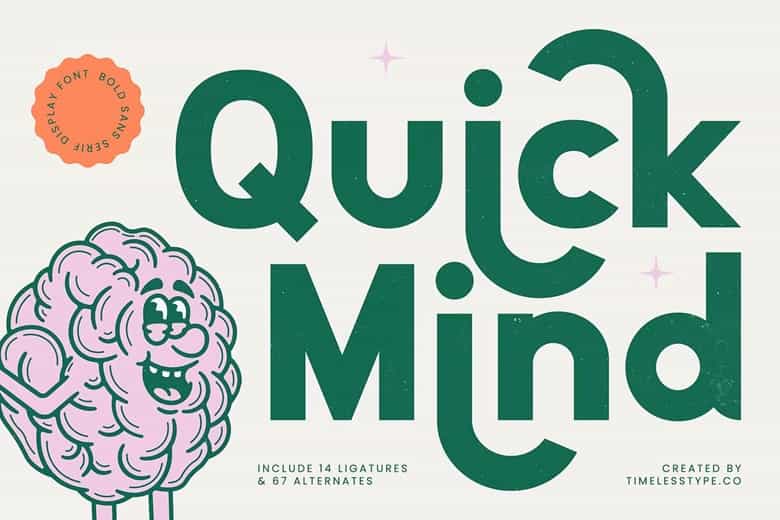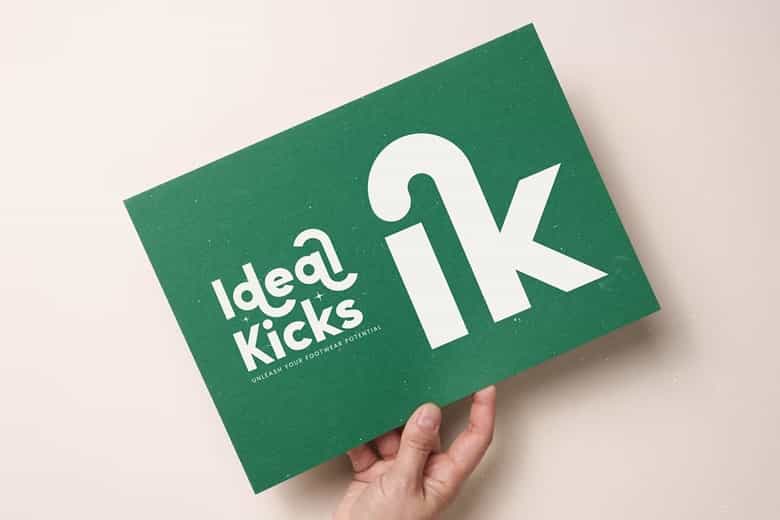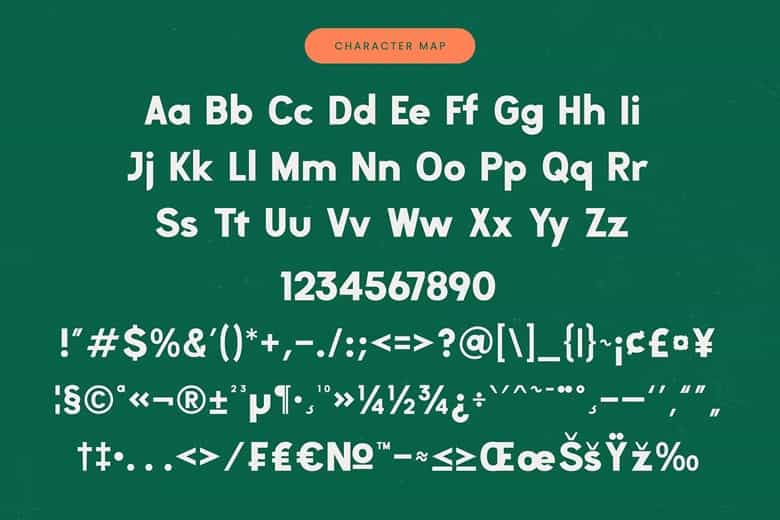
Quick Mind is a modern bold sans serif display font, from Timelesstype.Co , Suitable for any projects such as: logos, branding projects, homeware designs, product packaging, mugs, quotes, posters, shopping bags, t-shirts, book covers, name card, invitation cards, greeting cards, label, photography, special events, and all your other luxury and beautiful projects.